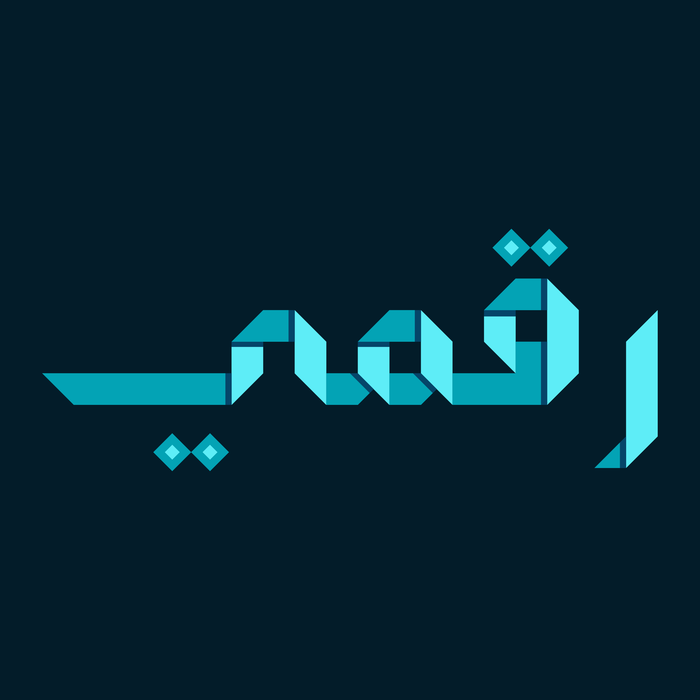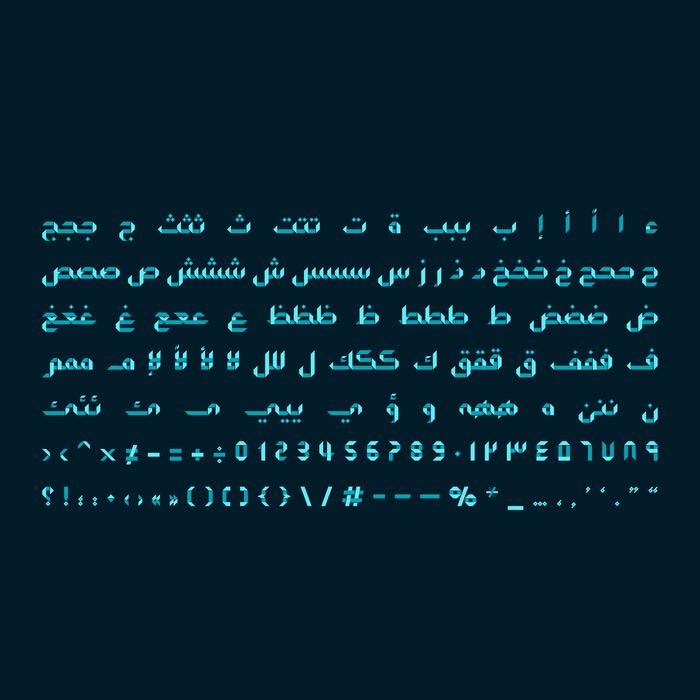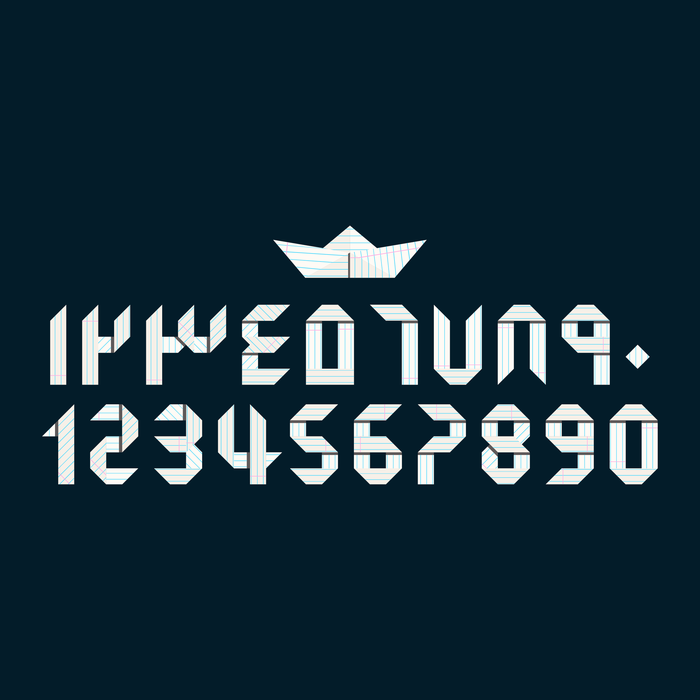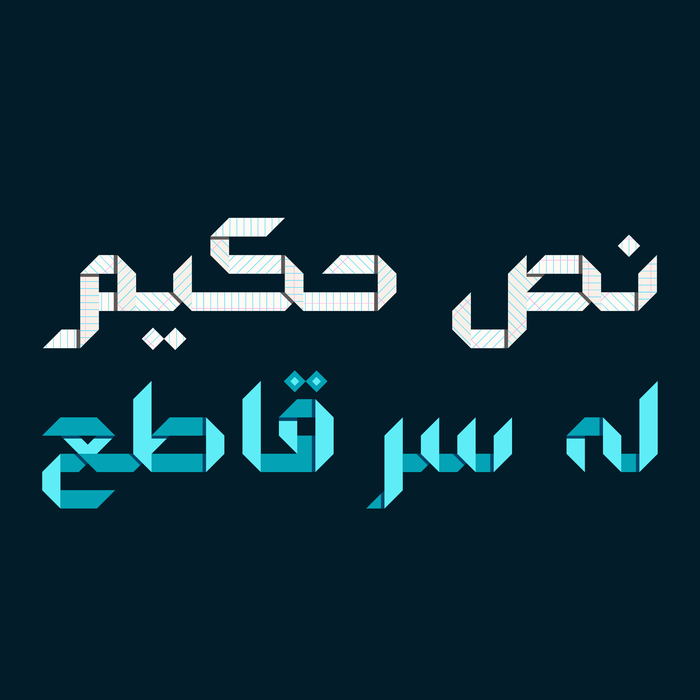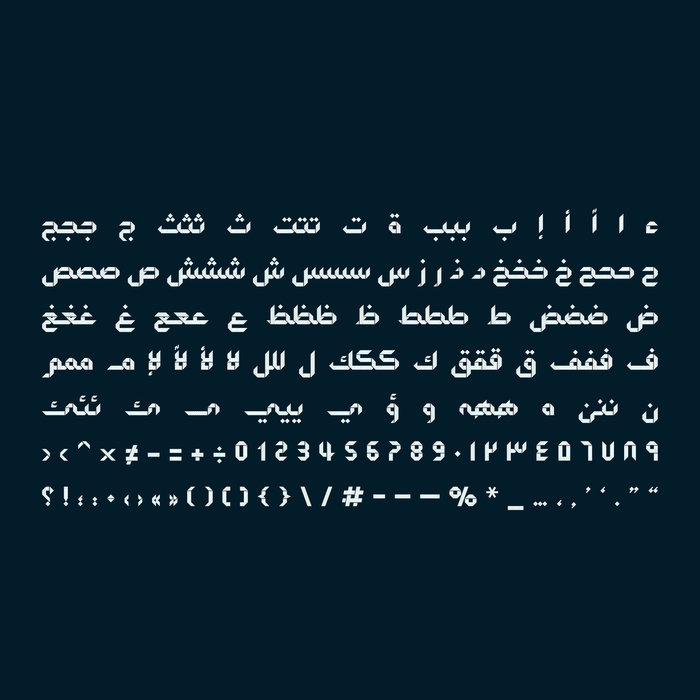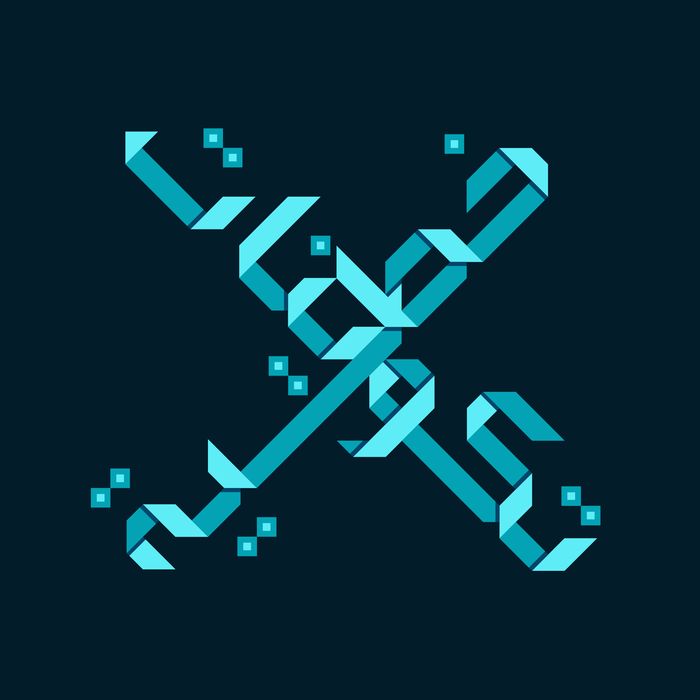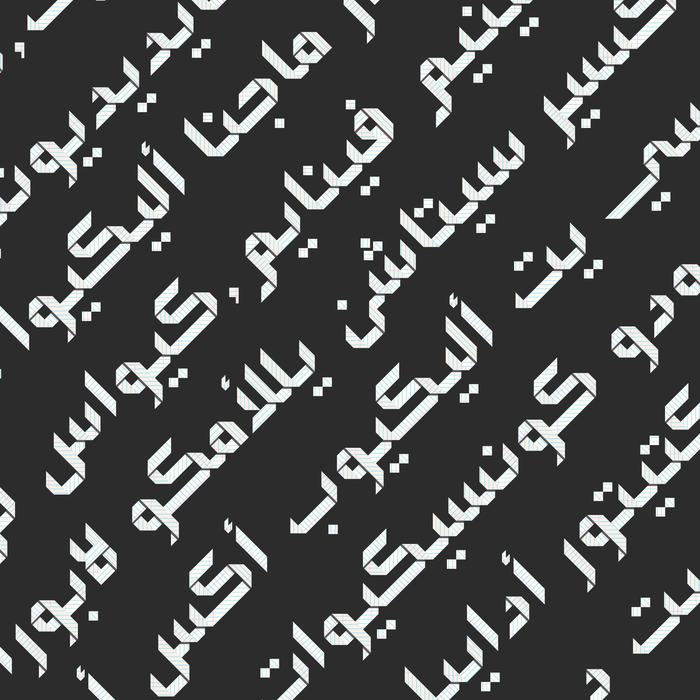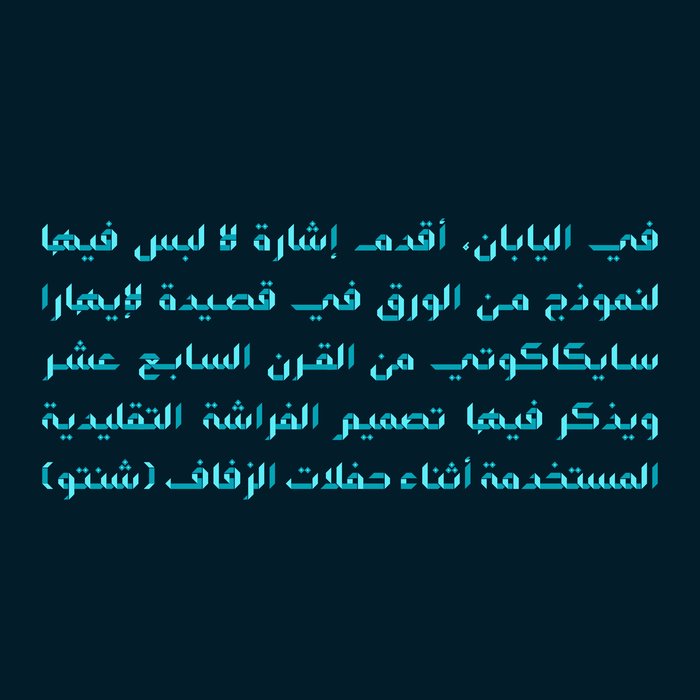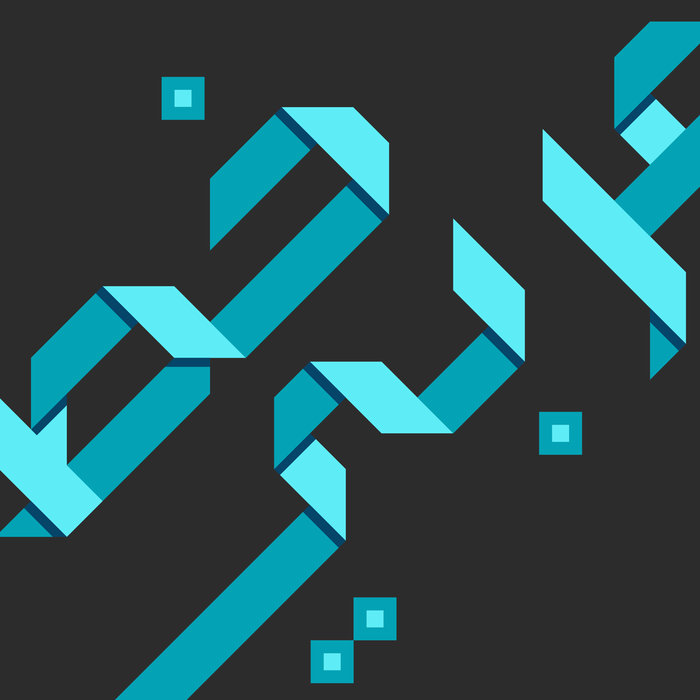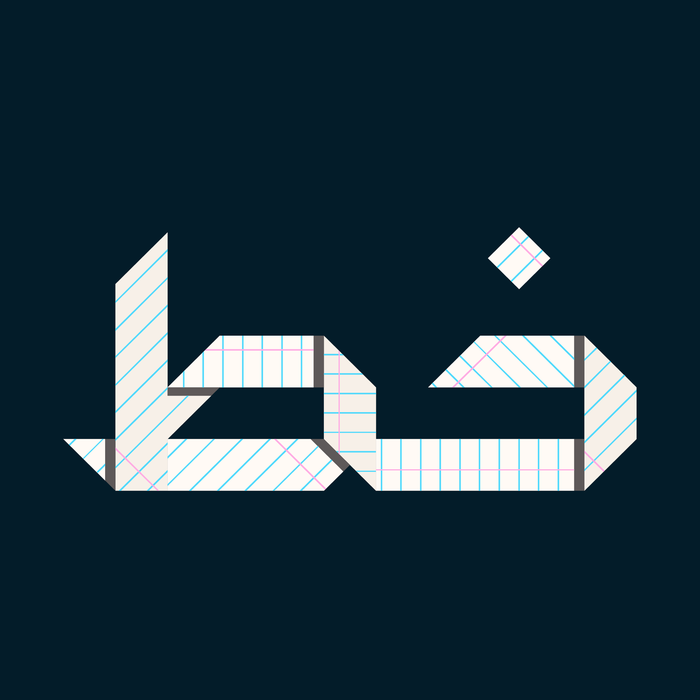
Origami - Colored Arabic font
Origami is an experimental Arabic font that is inspired by the art of paper folding. The font design simulates the basic origami folds in a geometric structure that replicates the Arabic letterforms. Origami is an SVG colored font which comes in two styles; Notepad and Color Paper. The font suits various range of creative projects including web design and print.